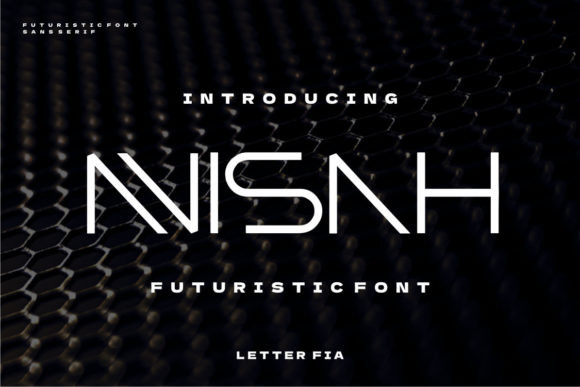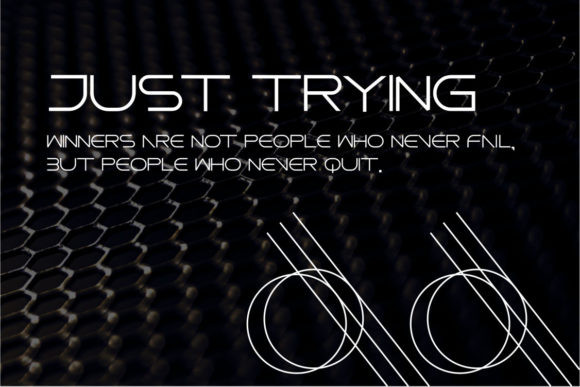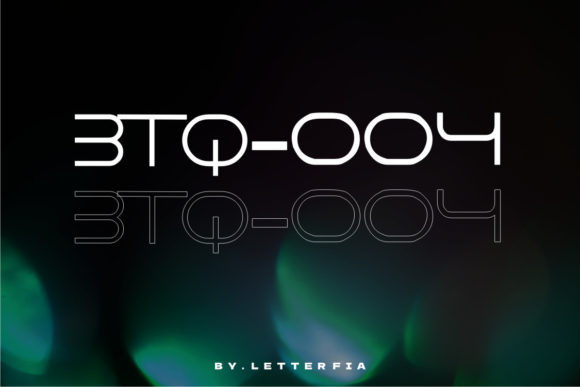
Avisah Font
Avisah is a cool and minimalist display font. This font is ideal for writing web designs, business cards, or pretty much anything else that requires a unique touch.